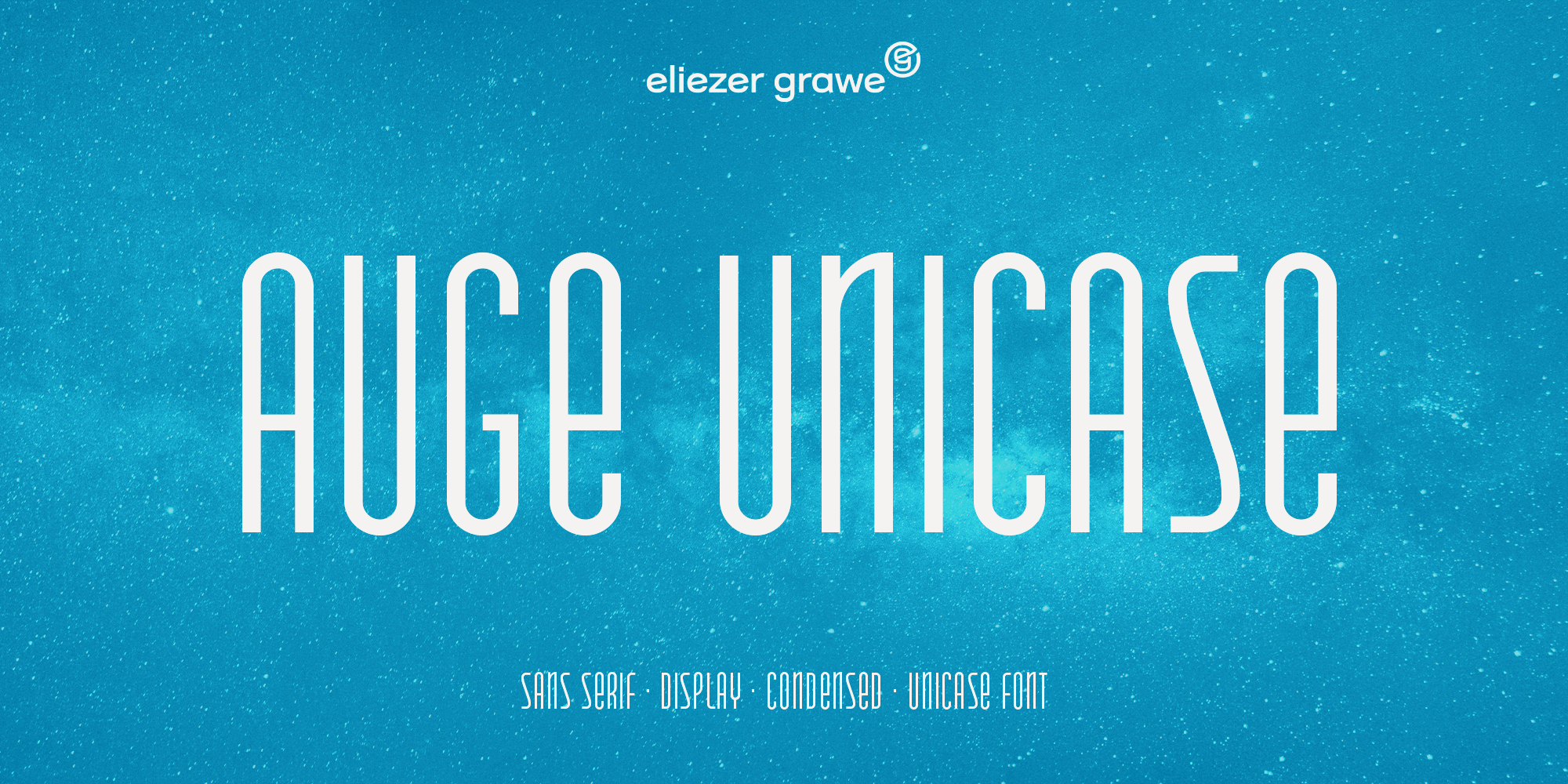
Auge Unicase Font is perfect for modern architecture firms, contemporary design studios, minimalist brand communications, tech startup marketing, progressive art gallery signage, urban planning consultancy materials, modern furniture showroom promotions, and sleek product design campaigns. This unified typeface excels in applications where design consistency, modern simplicity, and typographic innovation are essential for connecting with audiences who appreciate clean aesthetics and the sophisticated uniformity of contemporary design principles.
What makes Auge Unicase Font so exciting is its revolutionary embodiment of typographic unity and design consistency that perfectly captures the essence of unicase letterforms and the modern beauty of eliminating traditional case distinctions for pure visual harmony. The font features uniform-height letterforms with contemporary characteristics that create seamless text flow and visual consistency. Its unified character conveys modernity, equality, and design innovation - essential qualities for brands serving design-conscious markets, progressive industries, and audiences who appreciate typographic experimentation, modern design principles, and the clean aesthetic of unified letterforms that challenge traditional typography conventions.
The Auge Unicase Font family includes multiple uniform weights and unicase variations that enhance its modern appeal. Each weight maintains the distinctive unicase principle where all letters share the same height, creating unprecedented visual consistency while offering designers complete flexibility for contemporary applications that demand typographic innovation and design uniformity.
Whether you're creating branding for modern design companies, developing materials for contemporary services, or designing marketing campaigns for progressive experiences, Auge Unicase Font Free Download provides the typographic innovation your project demands. The font's unified character makes it particularly effective for brands targeting design enthusiasts who appreciate modern typography, clean aesthetics, and the bold simplicity of unicase design principles.
Unify your design vision with Auge Unicase Font and modernize your brand communications with typography that celebrates the innovative beauty of unicase consistency and contemporary design unity.